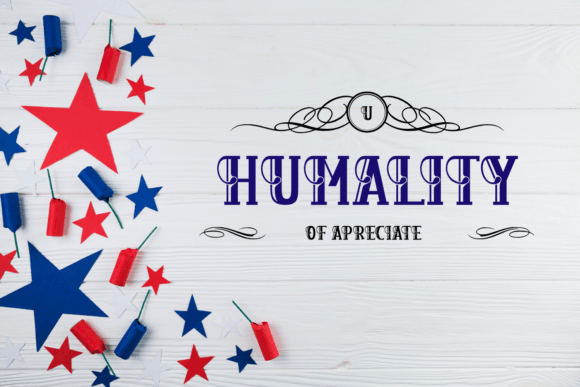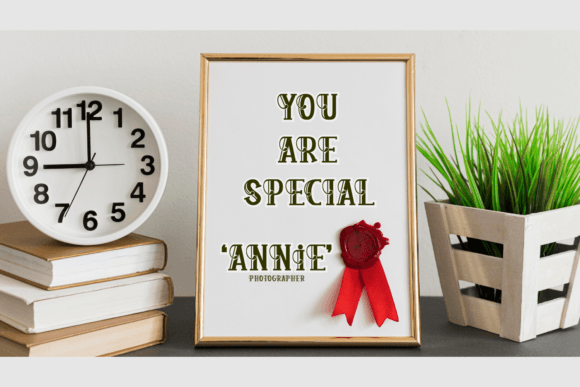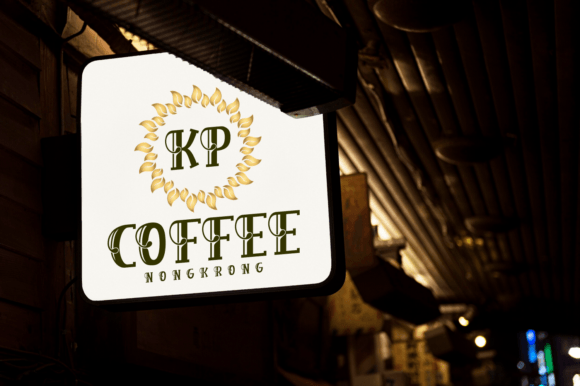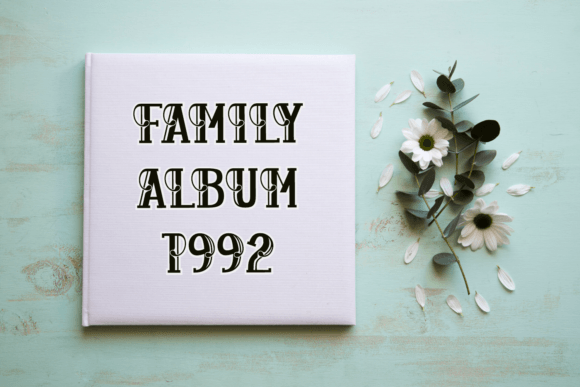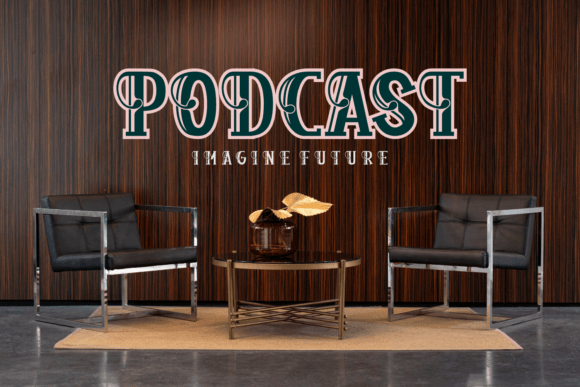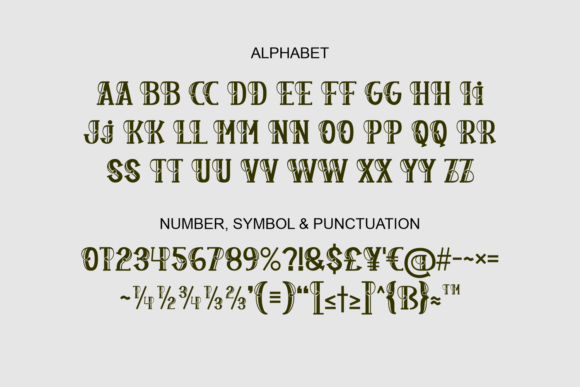
Introduction to Imane Font
Have you ever stumbled upon the perfect font that instantly elevates your creative project? For designers, finding that one special font can be a game-changer. It’s the moment when everything clicks, and your vision starts to take shape. For many, that special font is the Imane Font.
This whimsical and playful typeface is a design resource like no other. Its unique curves and energetic feel make it perfect for grabbing attention and putting a smile on your audience’s face. Whether you’re working on a children’s material, a poster, or a headline, Imane Font is sure to bring a touch of quirky charm to your project.
With its transparent background and high-quality design, the Imane Font is a free download waiting to be unleashed on your next creative project. So why not let your creativity run wild with this delightful and vibrant typeface? The possibilities are endless, and the results are sure to be amazing.
Key Features of Imane Font
- Unique, hand-drawn font with a transparent background, ideal for graphic design and digital art.
Honest Review: Imane Font
I recently had the chance to work with the Imane Font, a free download that I was excited to incorporate into my design project. I have to say, I was pleasantly surprised by the high quality of this font.
One of the things that I liked most about the Imane Font is its versatility. It comes in a range of weights and styles, making it easy to use in a variety of creative projects. ✨ The transparent background also makes it a great choice for overlaying text on top of images or other design elements.
Here are some of the key features that I appreciated about the Imane Font:
- High-quality design that is perfect for creative projects
- Range of weights and styles to choose from
- Transparent background for easy overlaying
Of course, no font is perfect, and the Imane Font is no exception. ⚠️ One of the limitations I found was that it may not be as suitable for body text, as it can be a bit too decorative for large blocks of text.
Overall, I was impressed with the Imane Font and would definitely recommend it as a design resource for any creative project. Its high quality and versatility make it a great choice for designers looking for a free download that can add some flair to their work.
Tips for Getting the Most Out of Imane Font
To maximize the potential of Imane Font, experiment with different font sizes, colors, and styles. Combine it with other design elements, such as images or shapes, to create visually appealing designs. You can also use Imane Font in conjunction with other fonts to create a unique and eye-catching typography.
Common Use Cases for Imane Font
Imane Font is perfect for a variety of creative projects, including logos, business cards, brochures, and social media graphics. Its high-quality design and transparent background make it an ideal choice for designers looking to create stunning visuals.